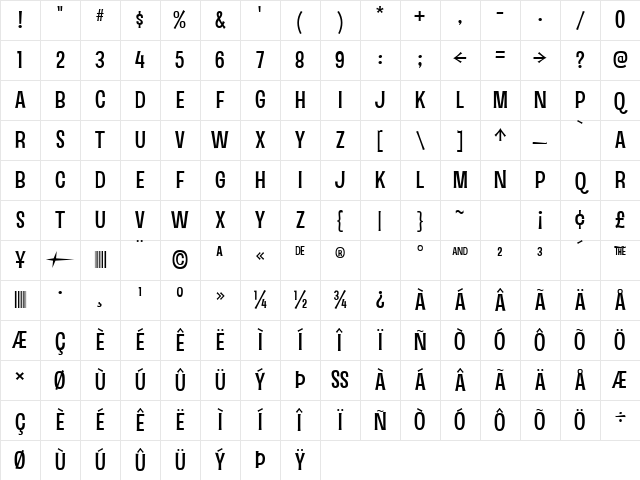
Sinzano Regular
Design Context for Sinzano
Sinzano is a composed and adaptable typeface that performs quietly and consistently across a wide range of design contexts.
Pro Tip: Use Sinzano in both headline and body roles to test its range before committing to a single application.